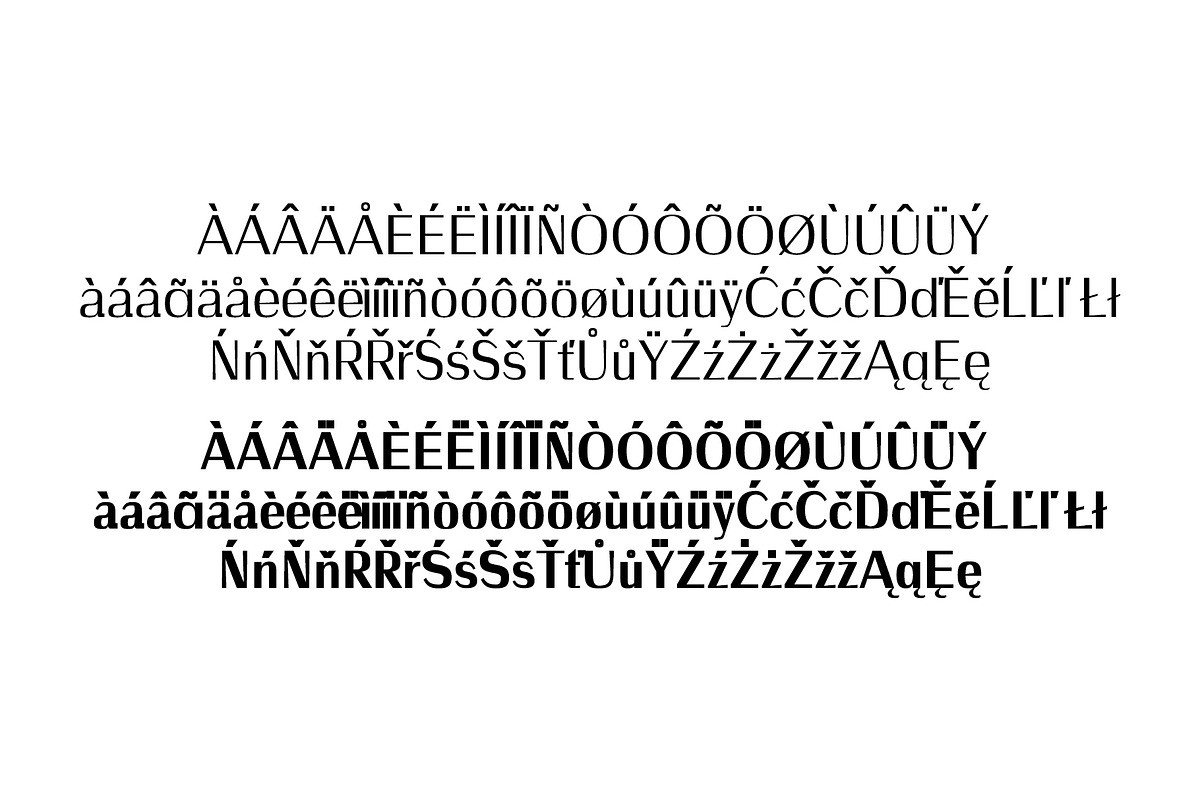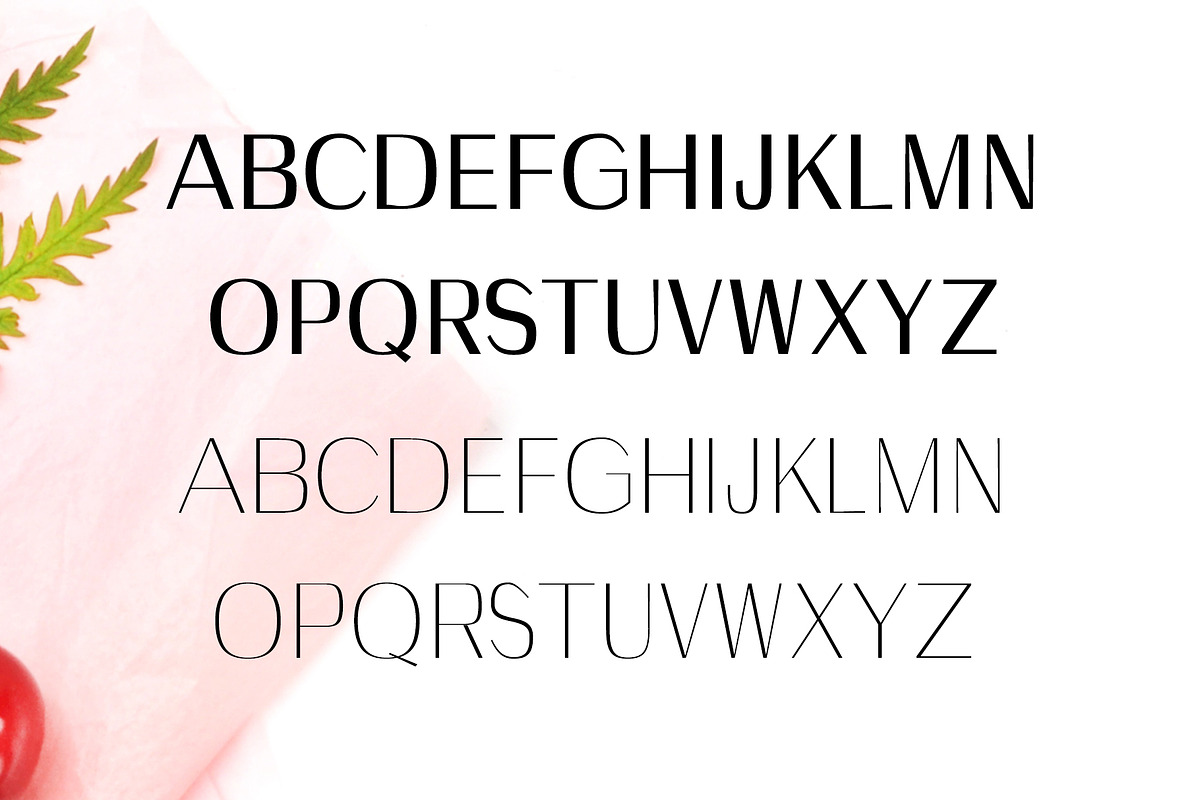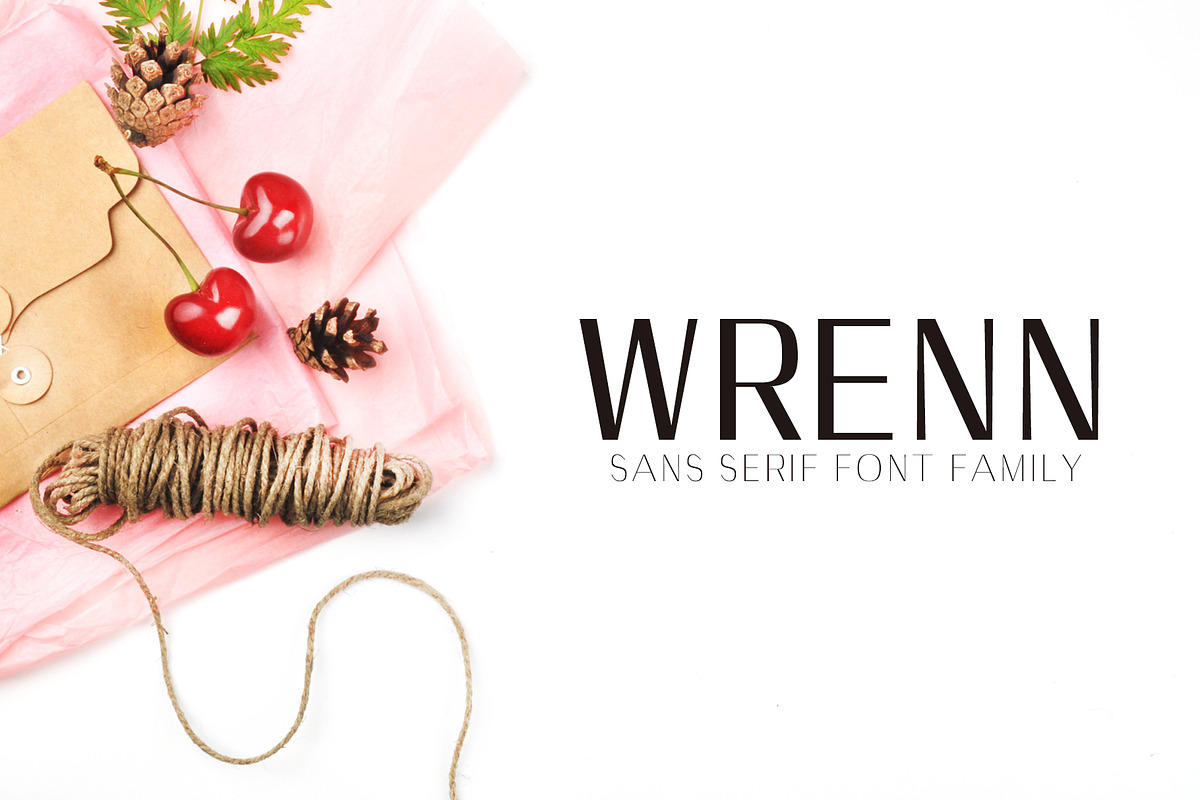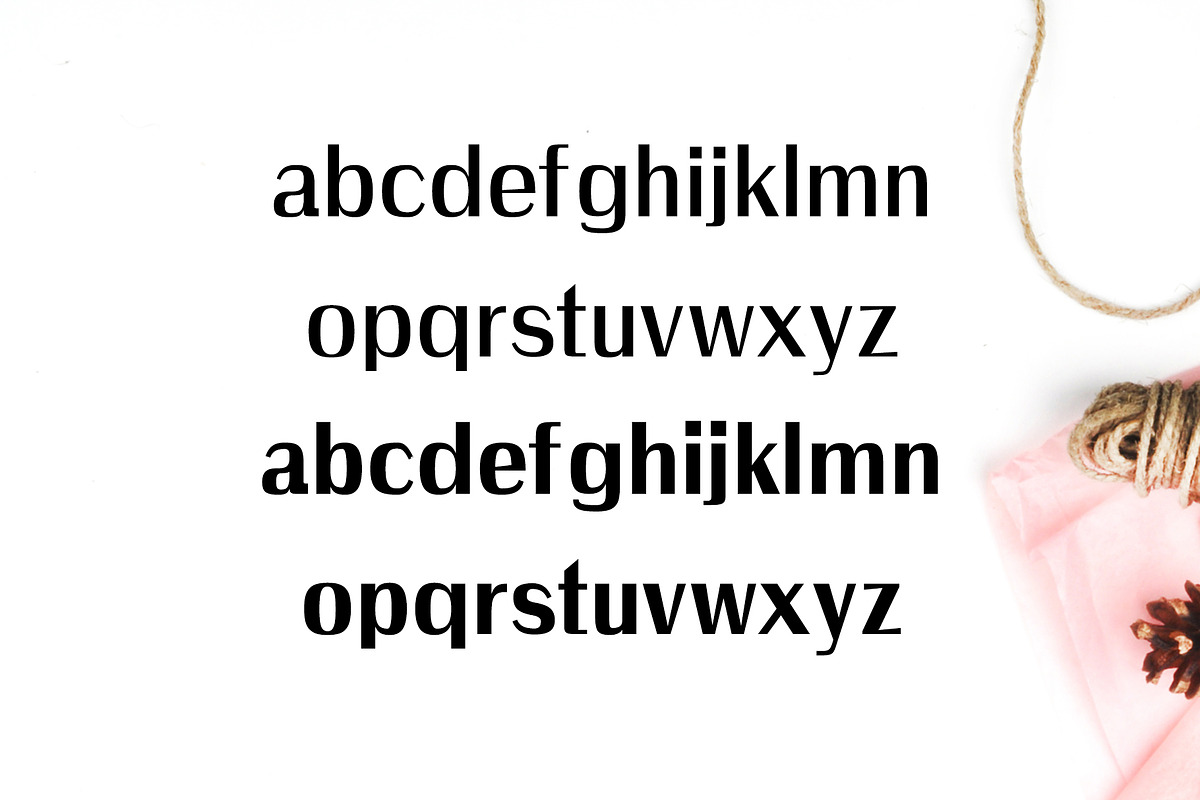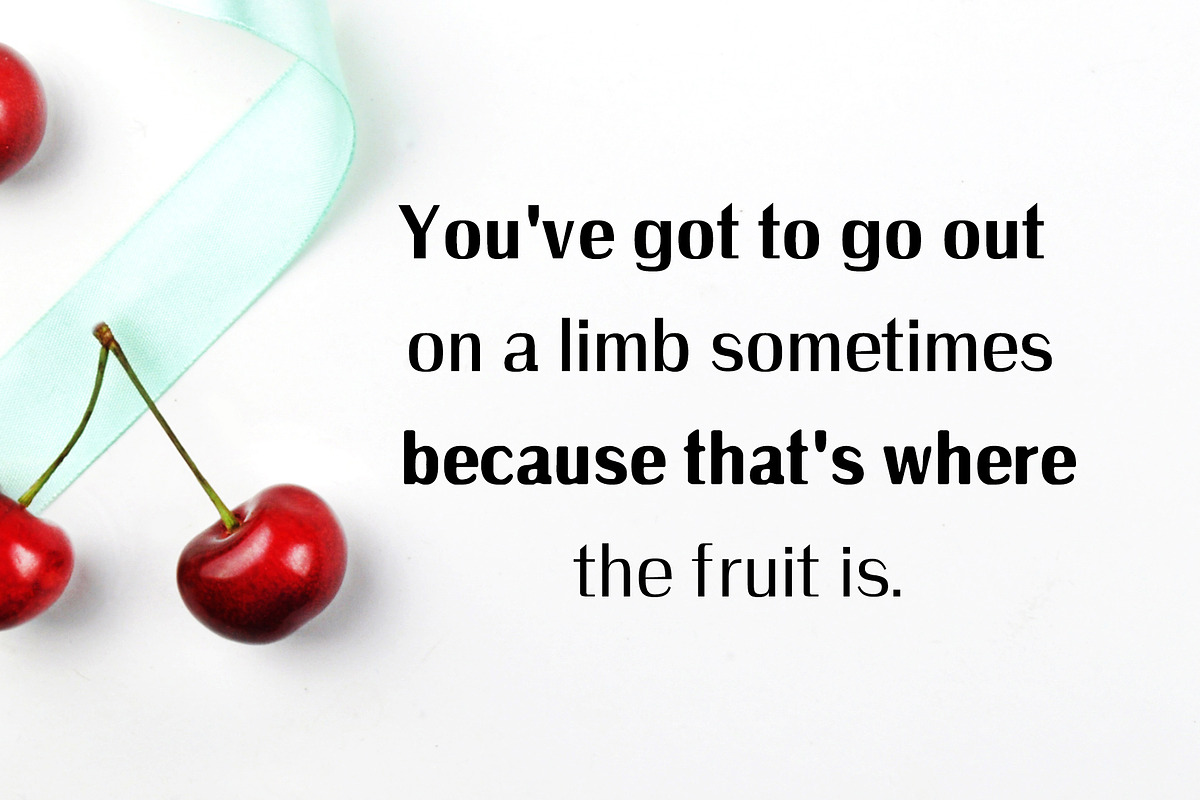
Wrenn Sans Serif 6 Font Family
Wrenn Sans Serif 6 Font Family by Creativetacos is a font selected for branding, posters, packaging, typography.
- Includes 6 weights The perfect choice for Modern, Fashion & Magazine Titles.
- Regular, Thin, Outline, Bold, Blur and Black Weights
- Wrenn Thin
- Wrenn Regular
- Wrenn Bold
- Wrenn Black
- Wrenn Blur
- Wrenn Outline
Why Wrenn Sans Serif 6 Font Family is worth a look
Wrenn Sans Serif 6 Font Family by Creativetacos fits naturally into Branding, posters, packaging, typography.